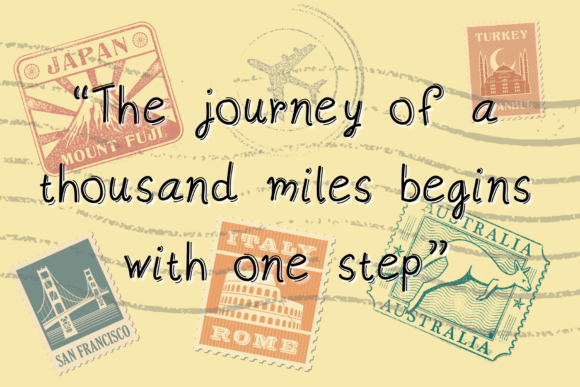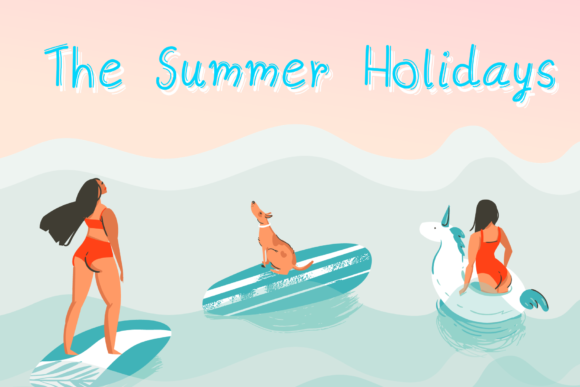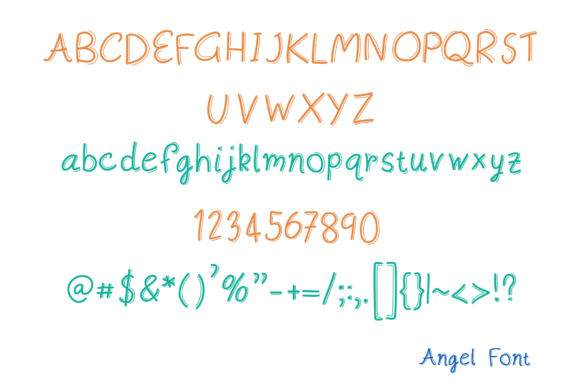
About Angel Font
Angel is a charming and casual handwritten font that adds a touch of simplicity and naturalness to your designs. With its cute and unpretentious style, this font is perfect for a variety of informal design projects.
The relaxed and effortless look of Angel makes it an ideal choice for adding a playful and friendly vibe to your creations. Whether you’re designing greeting cards, social media posts, invitations, or personal projects, this font will bring a sense of ease and approachability.
The simplicity of Angel is its strength, allowing it to blend seamlessly with various design elements. Its clean and legible letterforms make it easy to read, ensuring that your message is communicated clearly. The casual strokes and natural flow of the font create a handwritten feel, adding a personal touch to your designs.
Angel is versatile and adaptable, making it suitable for a wide range of projects. It can be used in digital and print designs alike, from website headers and logos to packaging, posters, and more. Its simplicity allows it to complement other design elements without overpowering them, making it a versatile choice for various design styles and themes.
The beauty of Angel lies in its ability to convey a sense of informality and approachability. It evokes a feeling of comfort and friendliness, making it an excellent option for designs that aim to create a warm and welcoming atmosphere. Its simplicity also ensures that it remains timeless and can be used for years to come without feeling dated.
In conclusion, Angel is a simple and casual handwritten font that brings a cute and natural vibe to your designs. Its versatility and legibility make it suitable for a wide range of informal design ideas, allowing you to add a touch of playfulness and friendliness to your projects. Whether you’re creating invitations, social media graphics, or personal projects, Angel will effortlessly enhance the overall aesthetic and bring a charming appeal to your designs.